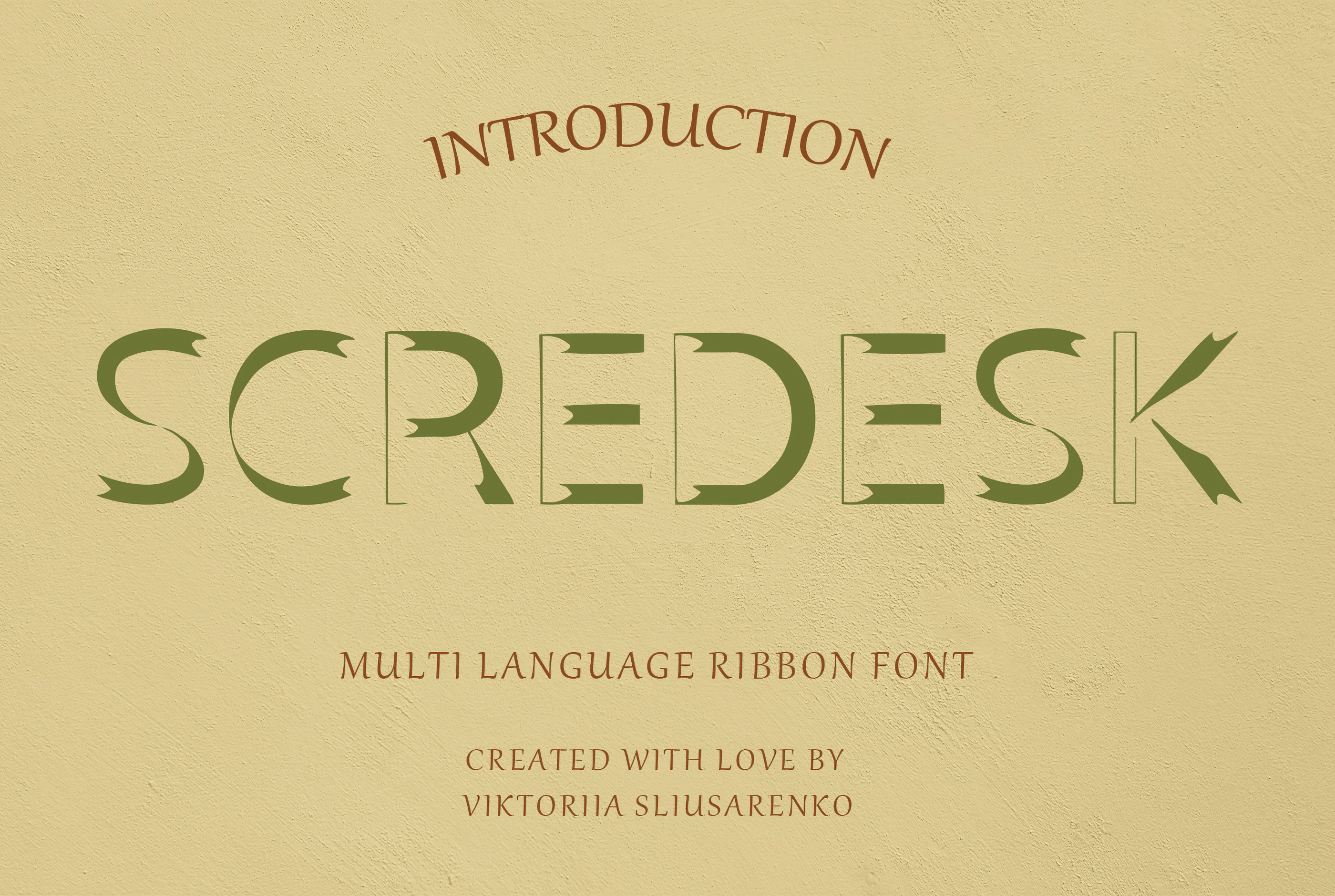
SCREDESK - serif font
Introducing Scredesk: A Captivating Handwritten Font for Designs.
Scredesk is a captivating handwritten font that commands attention and makes a clear statement in your designs. As a versatile vector font, it guarantees sharpness and clarity, regardless of size or scale.
This awesome font is designed to support multiple languages, enabling you to express your creativity and reach a wider audience with your captivating designs.
With its unique ribbon-like appearance, Scredesk adds an element of elegance and sophistication to your text. The letters' flowing lines and graceful curves create a visually appealing and distinctive look that captivates the viewer's attention.
Whether you're designing logos, invitations, packaging, or any other creative project, Scredesk offers a versatile and eye-catching solution. Let Scredesk elevate your designs with its captivating charm and stylish ribbon-like aesthetic. Make a statement with Scredesk and leave a lasting impression.